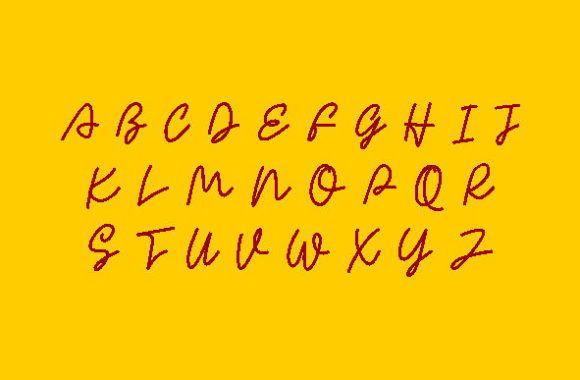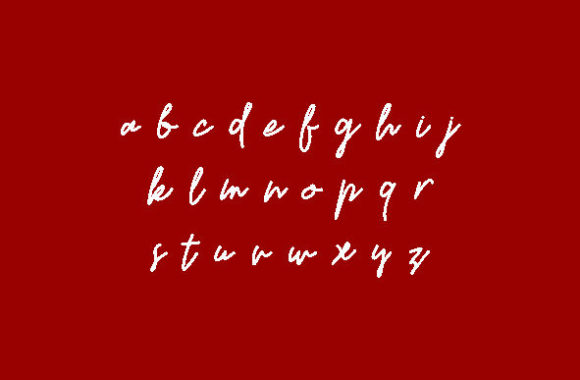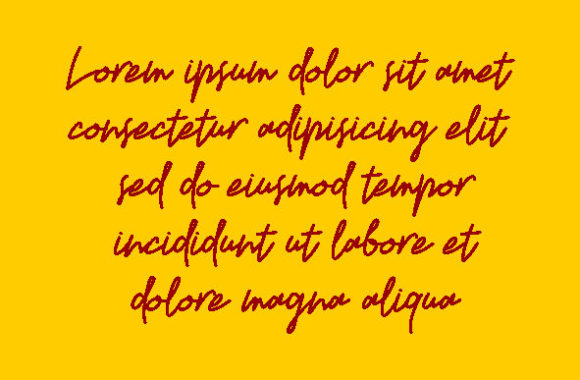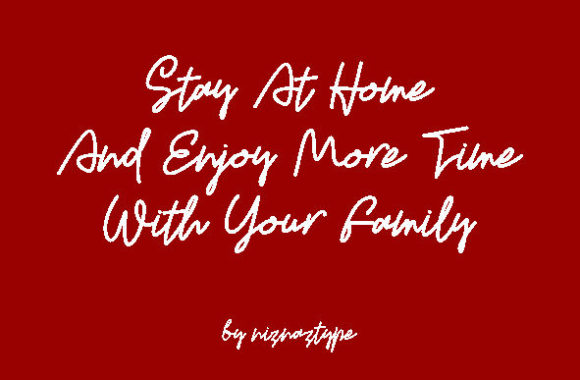
Xelouaja Font
Xelouaja feels equally charming and elegant. This stunning handwritten font is a stylish homage to classic calligraphy. Xelouaja is the perfect font for making original and outstanding designs.